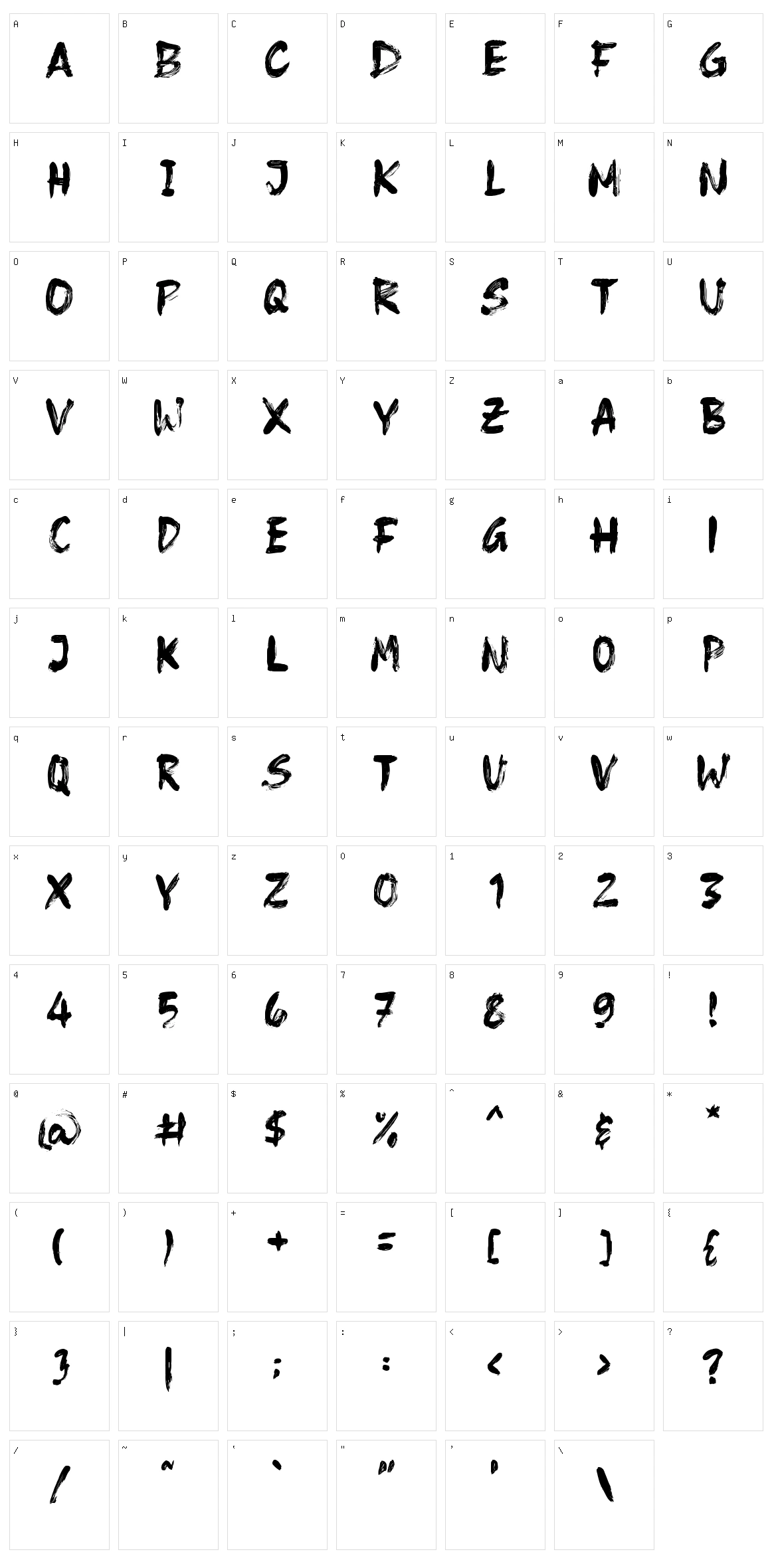
The free font Frost Vector is carefully designed by Graphicfresh, showcasing a thoughtful balance of creativity and usability and falls under the Script font style. When you download the ZIP file, it contains only 158.44 KB of font files, making it lightweight and quick to download. Please review the license details below to understand permitted usage and distribution rights. If license information is not available, we recommend using this font for personal projects only or contacting the author directly for commercial usage permissions.